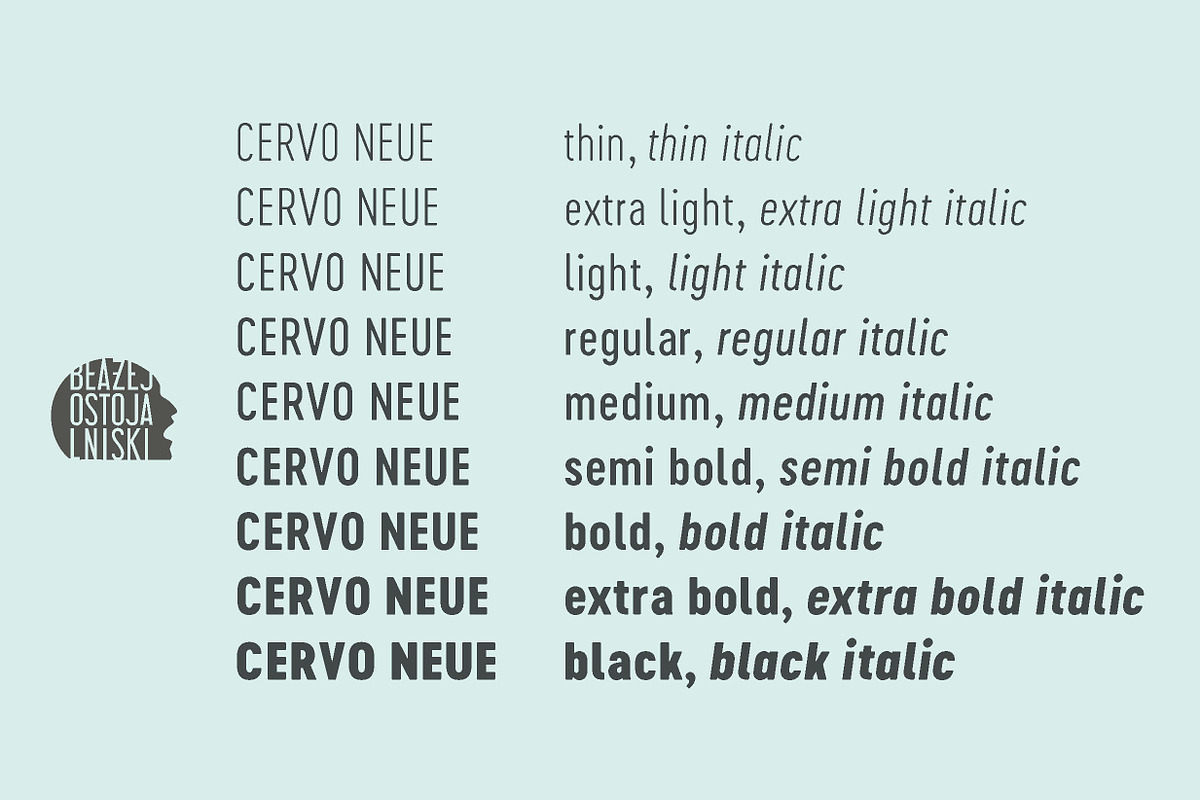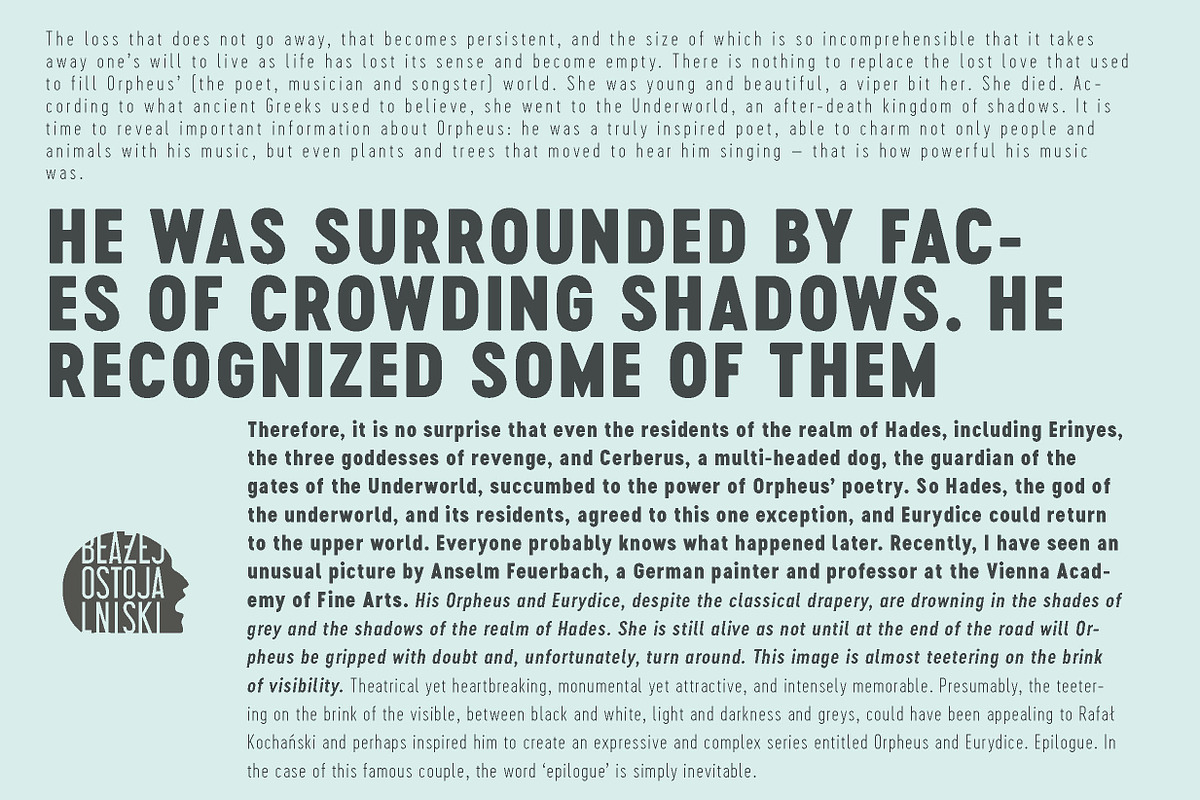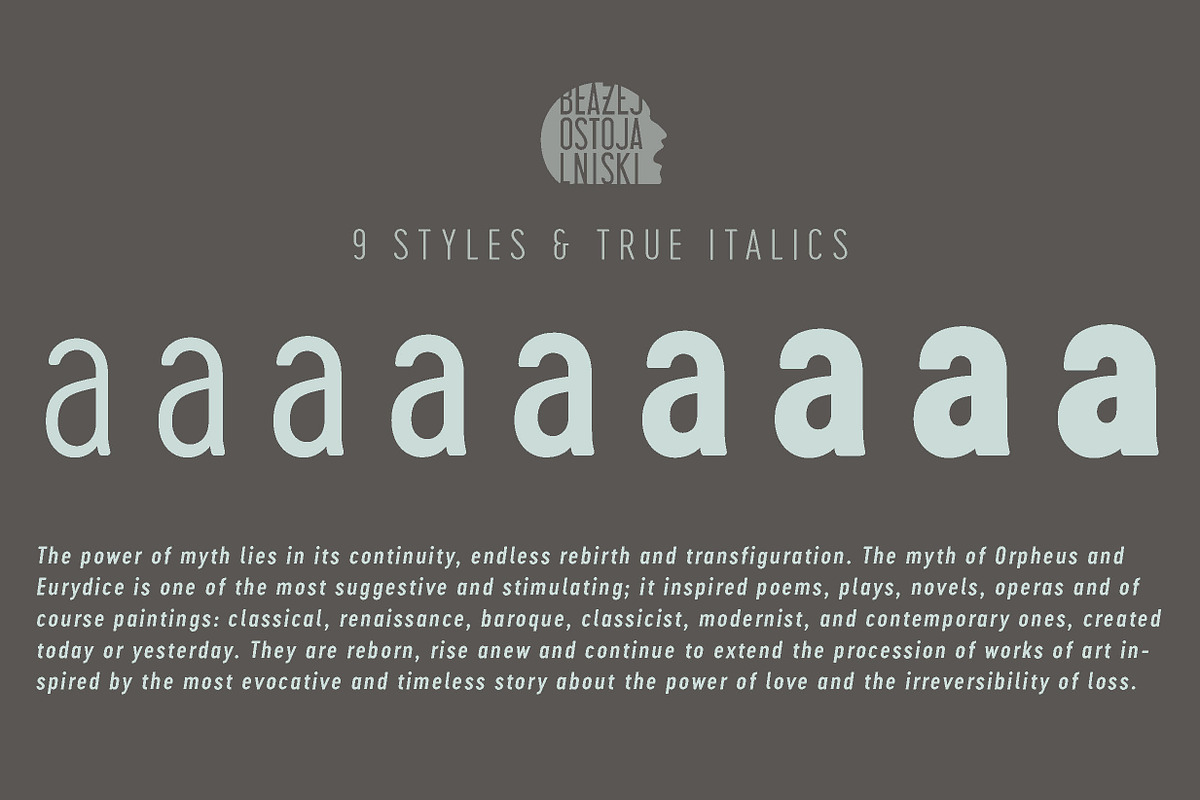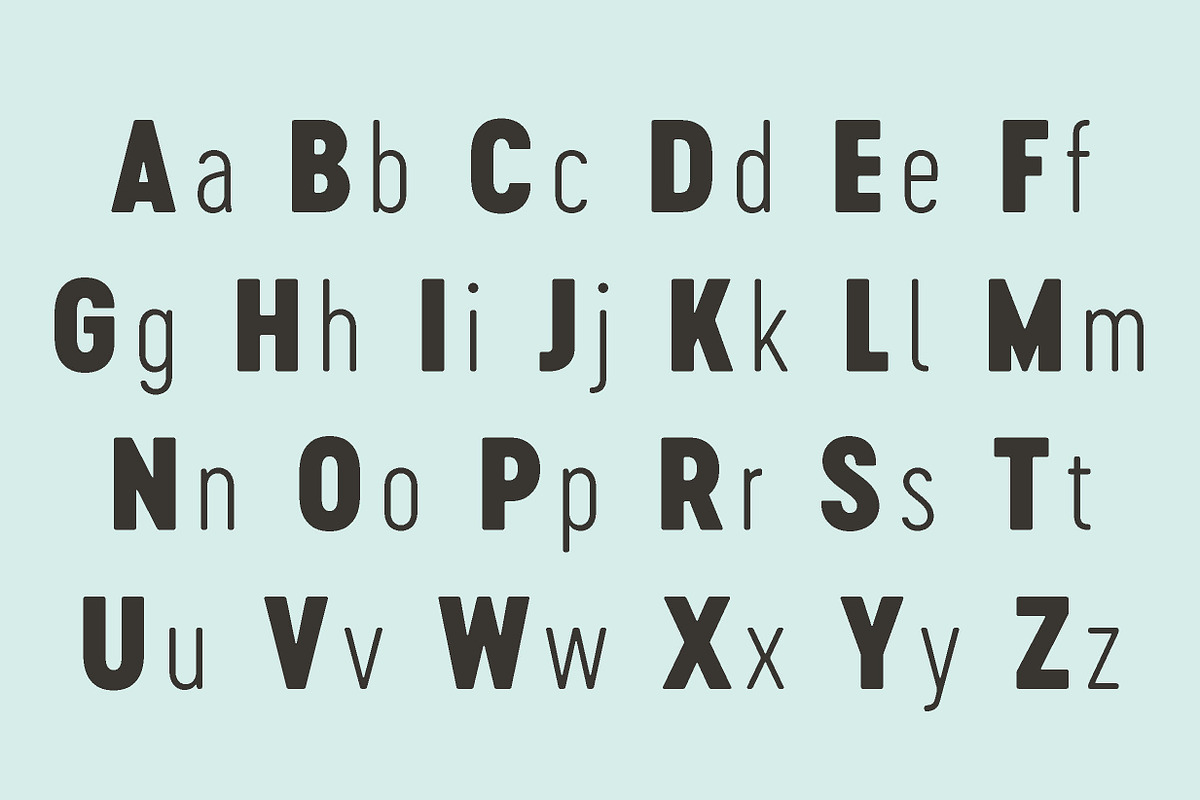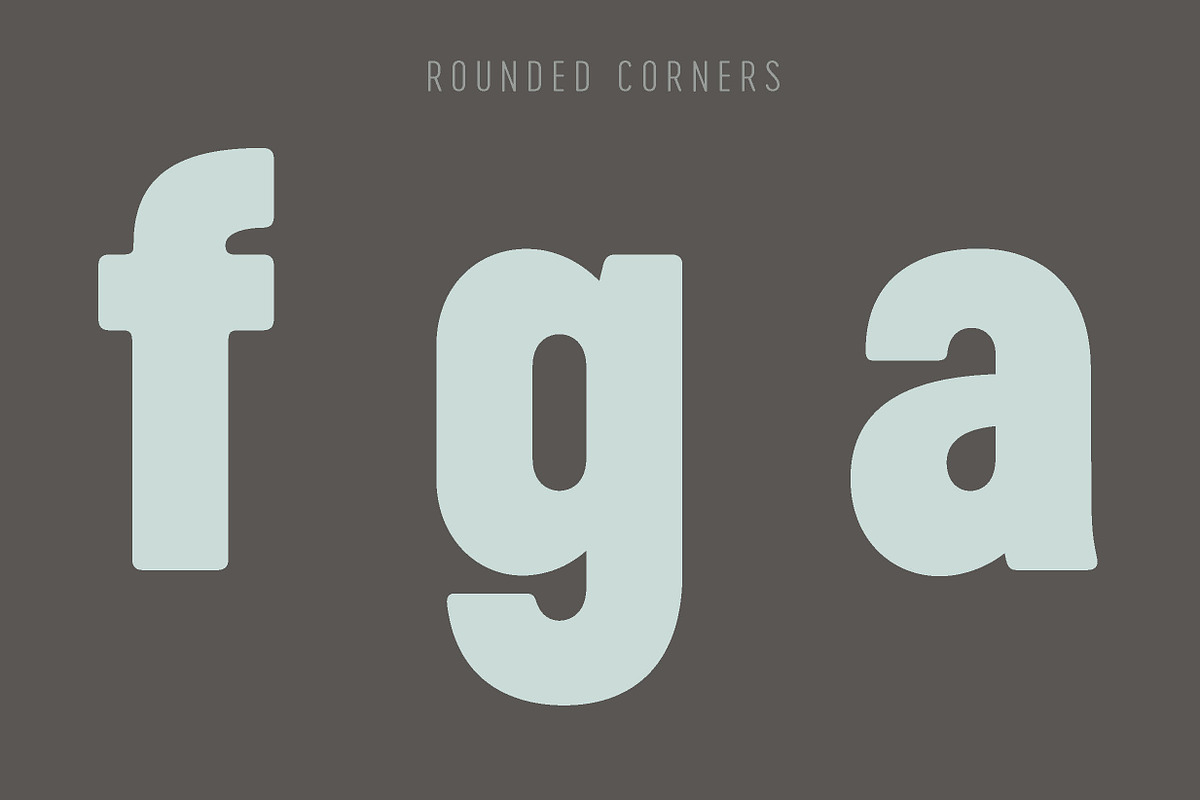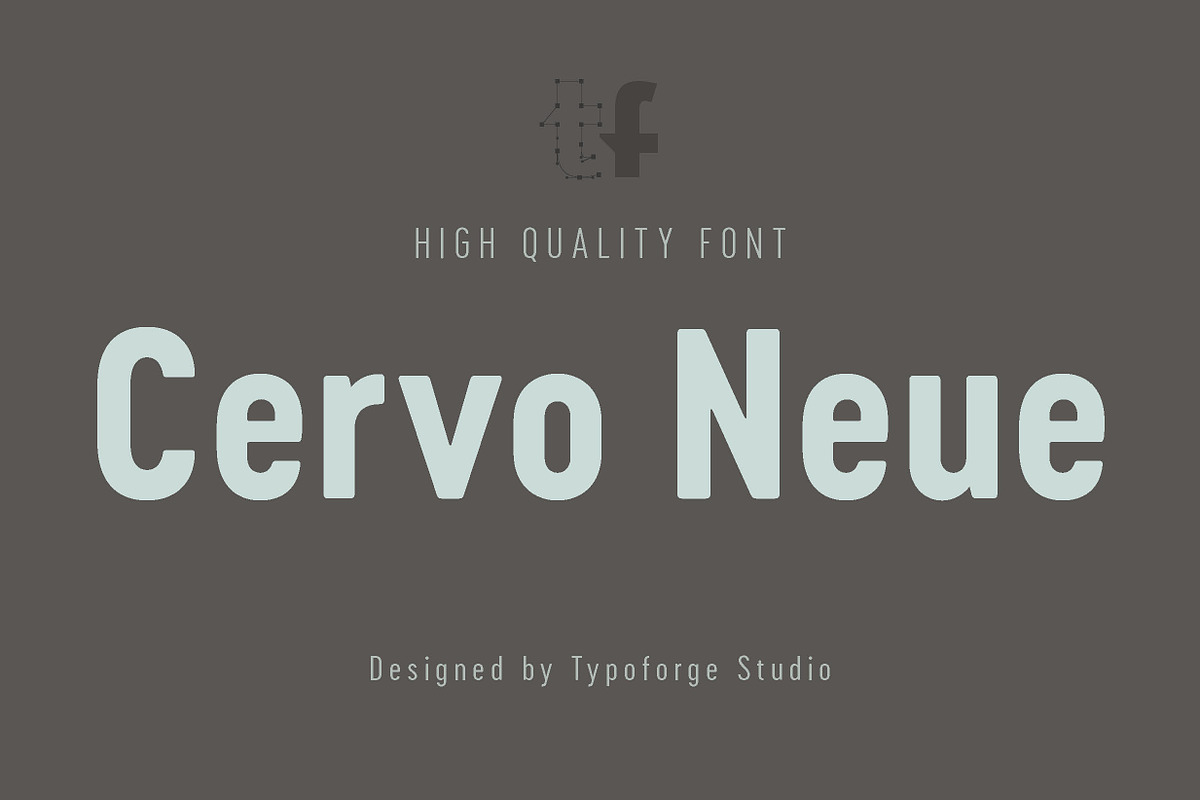
Cervo Neue is the new perfected and extended version of Cervo, containing 18 variants. It differs from the previous version with the higher accents over glyphs, enlarged punctuation, old-style numerals and the newly added varieties Semi Bold, Bold, Extra Bold and Black. Additionally, there is the variety of grotesque. Font Cervo is inspired by a “You And Me Monthly” published by National Magazines Publisher RSW „Prasa” that appeared from Mai 1960 till December 1973 in Poland.